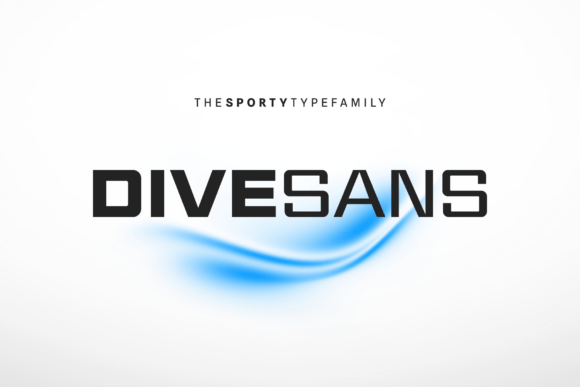
Introduction to Divesans Font
DiveSans is a clean, geometric sans serif; this sporty typeface includes four different weights, each font maintaining the same geometric foundation, ensuring consistency across various uses.
Its clean, sharp lines and balanced proportions make it versatile for both digital and print applications Whether you’re creating bold headlines, athletic branding, dynamic posters, or performance-driven apparel graphics, DiveSans delivers impact with clarity.
Key Features of Divesans Font